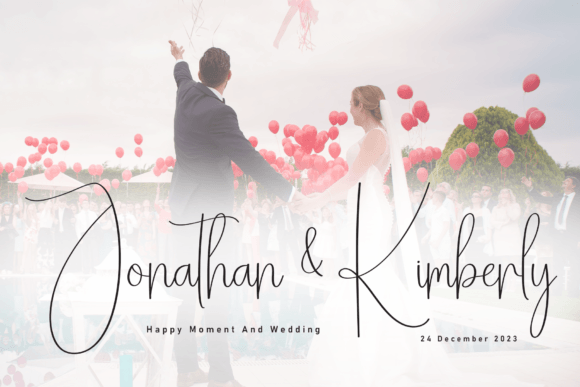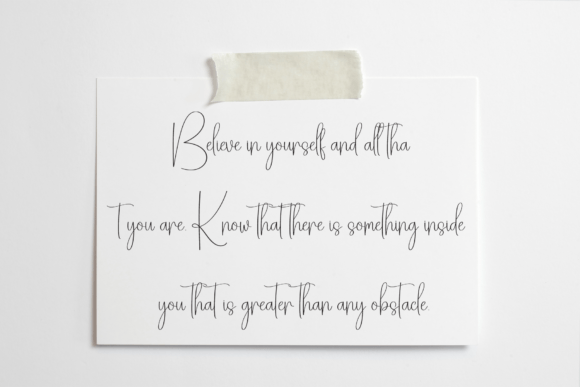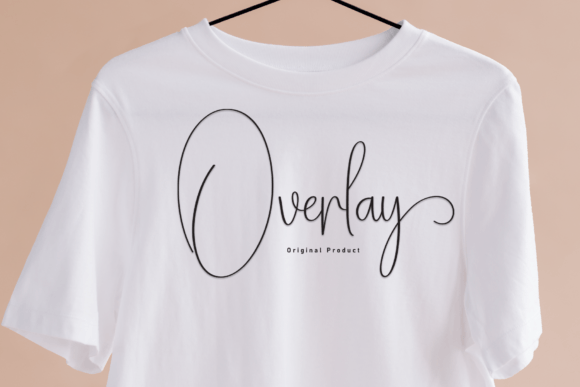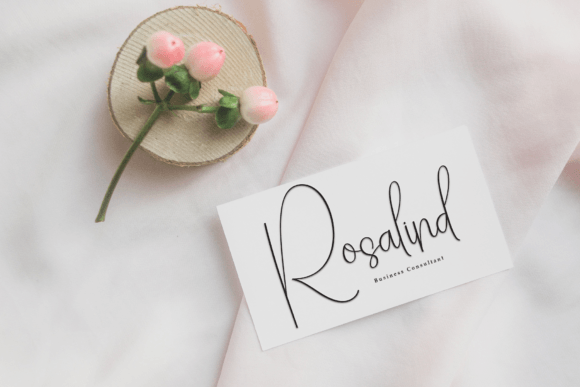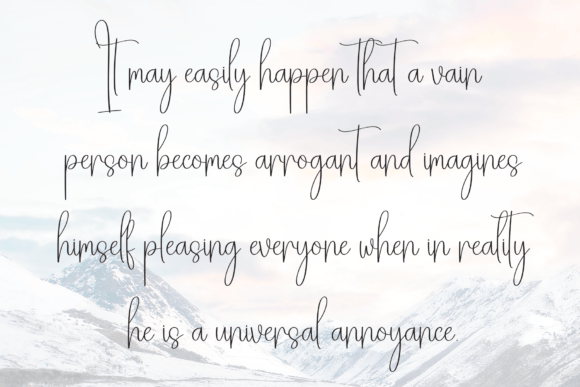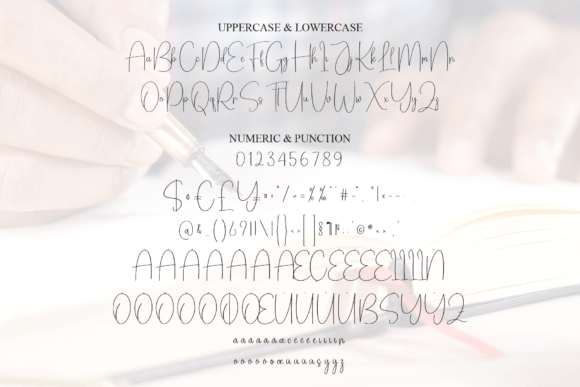
Introducing Autography Font: Elevate Your Designs with Timeless Elegance
Are you a designer or crafter looking for a font that exudes sophistication and style? Look no further than Autography, a stunning handwritten font that brings a touch of classic calligraphy to your modern projects. With its impeccable form and balanced design, Autography is the perfect choice for those seeking to add a level of elegance to their work.
The Inspiration Behind Autography
Autography font draws inspiration from timeless classic calligraphy, reimagined for the modern era. The result is a stylish and contemporary font that boasts a unique character. The designers of Autography have skillfully blended traditional techniques with modern sensibilities, creating a font that is both nostalgic and fresh.
Key Features of Autography Font
• Balanced and Varied: Autography’s design is meticulously balanced, ensuring that each letter flows seamlessly into the next. The font’s varied strokes and carefully crafted details add depth and character to your text.
• Contemporary Atmosphere: Despite its classic roots, Autography has a distinctly modern feel. This makes it an excellent choice for designers and crafters looking to add a touch of sophistication to their projects.
• Impeccable Form: Every aspect of Autography has been carefully considered, from the letterforms to the spacing. The result is a font that is not only beautiful but also highly legible.
Autography’s versatility makes it suitable for a wide range of applications. Whether you’re working on:
• Branding and Logos: Autography’s unique character makes it an excellent choice for logos and branding materials. Its elegance and sophistication will help your brand stand out.
• Invitations and Stationery: Add a touch of luxury to your invitations, greeting cards, and stationery with Autography’s beautiful script.
• Packaging and Product Design: Autography’s modern yet classic feel makes it perfect for product packaging and design. Elevate your product’s visual identity with this stunning font.
• Digital and Print Media: Whether you’re creating digital content or print materials, Autography will add a level of sophistication and style to your work.
Why Choose Autography Font?
With so many fonts available, why choose Autography? Here are just a few reasons:
• Unique and Memorable: Autography’s distinctive character will help your project stand out in a crowded marketplace.
• Elegant and Sophisticated: This font exudes elegance and sophistication, making it perfect for high-end brands and luxury products.
• Highly Versatile: Autography can be used in a wide range of applications, from digital media to print materials.
Autography font is a stunning addition to any designer’s or crafter’s toolkit. Its unique blend of classic calligraphy and modern sensibilities makes it the perfect choice for those seeking to add a touch of elegance to their work. With its impeccable form, balanced design, and versatile nature, Autography is sure to elevate your projects to new heights.
Introducing Autography Font: A Delicate and Elegant Handwritten Masterpiece
Are you a designer or crafter looking for a font that exudes elegance and sophistication? Look no further than Autography Font, a beautiful handwritten font that is sure to elevate your creative projects. In this article, we’ll take a closer look at what makes Autography Font so special and why it’s a must-have for anyone looking to add a touch of refinement to their work.
The Characteristics of Autography Font
Autography Font is a delicate and elegant handwritten font that boasts distinct and well-balanced letters. Each letterform is carefully crafted to create a sense of fluidity and movement, making it perfect for use in a variety of creative projects, from wedding invitations and stationery to branding and packaging.
One of the standout features of Autography Font is its unique and elegant swashes, which add an extra touch of sophistication to any design. Whether you’re looking to create a romantic and whimsical feel or a more formal and luxurious look, Autography Font has got you covered.
PUA Encoding: What Does it Mean?
Autography Font is PUA (Private Use Area) encoded, which means that you can access all glyphs and swashes with ease. But what does PUA encoding mean, exactly? In simple terms, PUA encoding allows font designers to include additional characters and glyphs that aren’t part of the standard Unicode character set.
In conclusion, Autography is a truly exceptional font that is sure to become a favorite among designers and crafters. Its masterful design, classy calligraphic influences, and contemporary twist make it the perfect choice for anyone looking to add a touch of elegance and sophistication to their designs. So why wait? Fall in love with Autography and bring your projects to the highest levels!